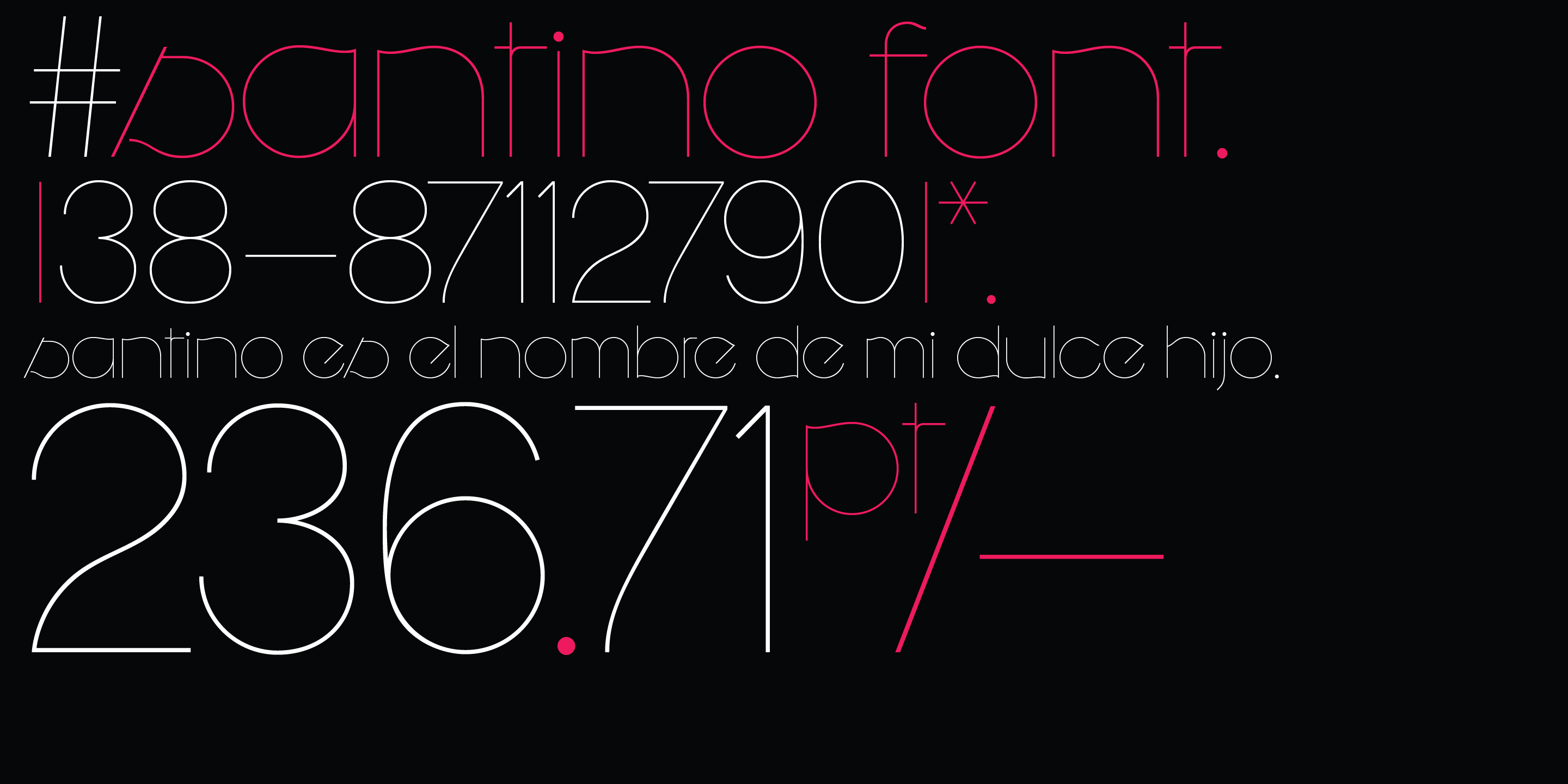
Santino Font is perfect for Mediterranean-inspired projects including Italian restaurant branding, Mediterranean cuisine menus, vineyard logos, European travel materials, artisanal food packaging, wine bar signage, cultural festival posters, heritage tourism campaigns, traditional craft branding, and authentic European business materials that celebrate Mediterranean culture and timeless elegance.
What makes Santino Font so exciting is its authentic Mediterranean character that captures the warm hospitality and rich cultural heritage of Southern European traditions. This font features distinctive letterforms with classic proportions, warm curves, and traditional elegance that evoke feelings of family gatherings, cultural pride, and timeless craftsmanship. The design philosophy celebrates the intersection of traditional values with contemporary appeal, creating typography that feels both historically rooted and modernly relevant, perfect for brands that want to communicate authentic heritage, family tradition, and Mediterranean warmth.
The Santino Font family typically includes multiple traditional variations and heritage elements, often featuring light, regular, medium, and bold versions alongside condensed alternatives and Mediterranean-inspired ornaments. Special ligatures, cultural symbols, and traditional flourishes are commonly included to enhance the authentic aesthetic. Some versions may offer different regional expressions reflecting various aspects of Mediterranean culture from Italian craftsmanship to Spanish tradition and Greek heritage influences.
Whether you're designing for Mediterranean restaurants, heritage brands, or cultural organizations, Santino Font Free Download provides the perfect foundation for communicating authenticity, tradition, and Mediterranean charm. This versatile typeface resonates particularly well with audiences interested in Mediterranean culture, traditional cuisine, family heritage, and authentic cultural experiences.
The font's traditional character makes it exceptionally suitable for brands targeting culture enthusiasts, food lovers, heritage seekers, and individuals drawn to authentic Mediterranean lifestyle and traditional family values. From restaurant menu designs to cultural event materials, Santino Font helps create meaningful connections with audiences who appreciate traditional craftsmanship and Mediterranean hospitality.
With its distinctive Mediterranean character and versatile applications, this font excels in both welcoming headlines and traditional text treatments, making it ideal for comprehensive branding systems that need to maintain cultural authenticity while ensuring warm visual impact across all Mediterranean marketing materials and heritage communications.